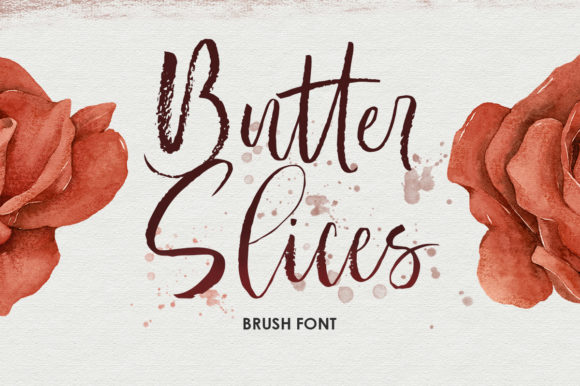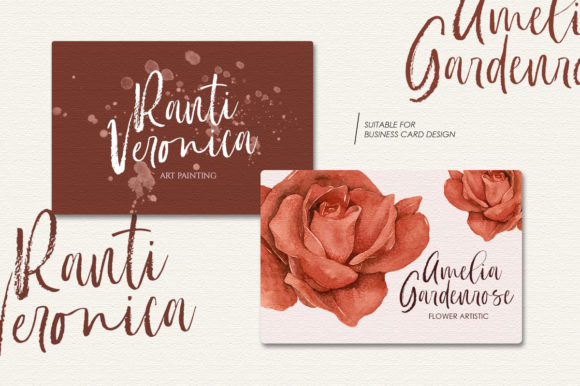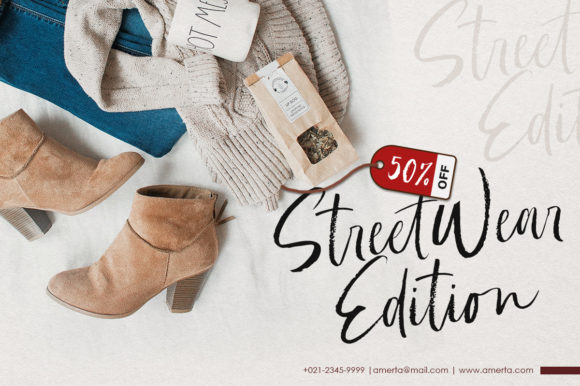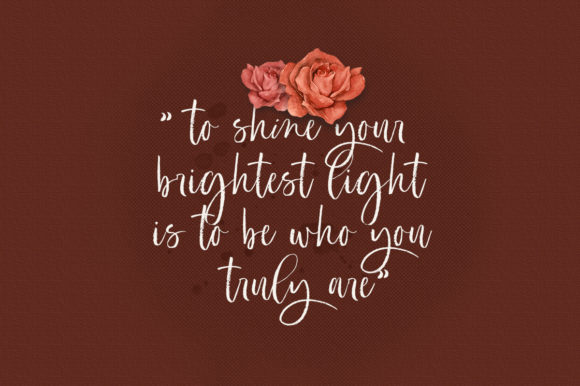
About Butter Slices Font
Butter Slices – Brush Script is a beautiful modern calligraphy script based on manual hand writing. The natural flow with the swashes make this font looks even more prettier. This type of font is perfectly made to be applied especially on wedding invitations, labels, logos, magazines, books, greeting / wedding cards, packaging, fashion, make up, stationery, novels, labels or any type of advertising purpose.